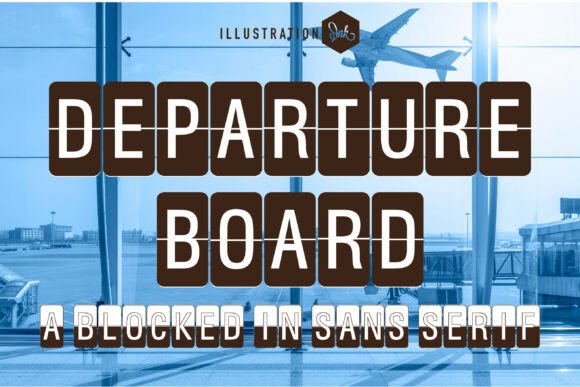
Departure Board: A Designer's Field Test for Real Projects
When a new display font lands on my desk, I don't just look at the letterforms; I imagine where it will live. Does it belong in a luxury boutique? A retro diner? A tech startup? Recently, I put Departure Board through its paces to see if it holds up under the pressure of actual client work. The verdict is clear: this typeface has a distinct personality that demands specific conditions to shine.
The first impression of Departure Board is immediate and evocative. It captures the nostalgic yet urgent energy of an airport terminal or a train station schedule from decades past. The mood is functional but stylized, creating a sense of movement and anticipation. Unlike generic sans serif fonts that try to be invisible, this one makes a statement. It feels like modern typography with a vintage soul, perfect for projects that need to feel established, reliable, and slightly adventurous.
Real-World Performance in Branding and Identity
I tested Departure Board across several different design scenarios to gauge its versatility. In logo design, it excels when used as a primary mark for businesses that want to convey travel, logistics, or transit. The thick strokes and distinctive terminals give it weight, making it memorable even at small sizes. However, I found it less suitable for minimalist brand identities that rely on subtlety. If your goal is understated elegance, you might find this too bold.
For packaging design and product labels, the font performs exceptionally well. Its high contrast and clear structure ensure that brand names pop against complex backgrounds. I applied it to mockups for craft beer cans and coffee bags, and the results were striking. The letters hold their shape even when wrapped around curves, which is often a pain point for many display typefaces. It adds a layer of premium quality to the packaging without looking cluttered.
In the realm of digital assets, such as social media graphics and website headers, Departure Board serves as a powerful attention grabber. It cuts through the noise of standard feed content. When used for event invitations or posters, it sets a tone of excitement and urgency. I particularly liked using it for printable designs, where the clean lines translate perfectly to physical paper, ensuring crisp edges whether printed on glossy cardstock or matte flyer paper.
Strategic Applications for Content Creators
Content creators and bloggers often struggle to find fonts that balance readability with style. Departure Board offers a solution for editorial design within blog posts. While it should not be used for long-form body text, it creates excellent visual hierarchy when paired correctly. Imagine a blog post about travel planning or urban exploration; using Departure Board for the main headline instantly frames the context for the reader.
Digital sellers offering templates for Canva or other design tools will find this font highly valuable. It works beautifully as a decorative accent in creative font collections. For those producing commercial design assets, having a versatile display type like this allows for a wide range of applications, from web design banners to email marketing headers. It bridges the gap between a strictly industrial look and a more approachable, human-centric aesthetic.
Merchandise designers should also take note. Whether screen printing t-shirts or engraving metal signs, the robust nature of Departure Board ensures durability. The letterforms are simple enough to be reproduced accurately on various materials, making it a safe bet for commercial font usage in physical goods.
Where to Exercise Caution
Even the best typefaces have limitations. My experience suggests that Departure Board requires careful handling in certain contexts. Because of its strong visual presence, it can easily overpower a design if overused. Large headlines and short phrases are its natural habitat, but attempting to use it for supporting text or paragraph copy will result in visual fatigue for the audience.
It is crucial to maintain brand consistency when integrating this font. Mixing it with other overly decorative styles can create a chaotic brand identity. It pairs best with clean, neutral companions. If you are building a brand that relies on trust and professionalism, ensure that the rest of your visual language supports the boldness of Departure Board rather than competing with it.
Avoid using this font for accessibility-heavy content where maximum legibility is required at very small sizes. While it is readable, its stylized nature means it may lose clarity when scaled down below 12 points in some formats. Stick to large headlines, brand marks, quotes, and decorative accents where its character can truly be appreciated.
Practical Designer Notes for Implementation
Before committing to Departure Board for a final project, there are several technical steps every professional designer should take. First, test the font in black and white. Color can sometimes mask spacing issues or poor kerning, so removing color forces you to evaluate the pure form of the letters.
Check small-size readability thoroughly. Does the fine detail get lost? Does the stroke width become too thin? I recommend testing the font on real mockups to see how it interacts with textures and lighting. This step is critical for packaging design and print projects where the final output must look flawless.
Compare uppercase and lowercase versions to understand the full range of the typeface. While many display fonts focus heavily on capitals, checking the lowercase helps determine if it can support mixed-case headlines effectively. Review the spacing carefully; tight tracking can make the font look cramped, while loose tracking can break the connection between letters.
Experiment with font pairing. Try combining Departure Board with a classic serif font for a sophisticated contrast, or pair it with a neutral sans serif font for a modern, clean look. You can also juxtapose it with a flowing script font or a casual handwritten font to create dynamic compositions. These combinations allow you to build a unique visual voice that stands out in the crowded marketplace of design assets.
Finally, always confirm the commercial licensing before using the font for client work or business products. Understanding the terms of use protects both you and your clients from legal complications. Once you have verified the license, you can confidently incorporate this premium font into your digital product lineups or client deliverables.
Departure Board is not just another typeface; it is a tool that carries history and emotion. When used with intention, it elevates a project from ordinary to memorable. Whether you are designing a logo, a poster, or a complete brand identity, this font offers the reliability and style needed for today's competitive visual landscape.